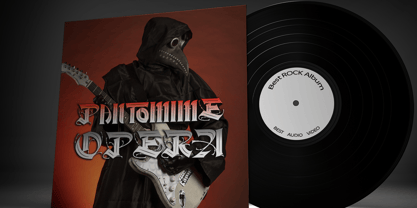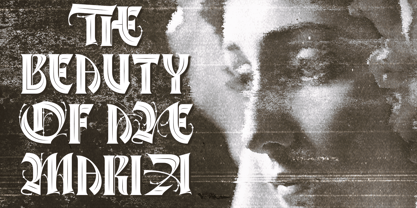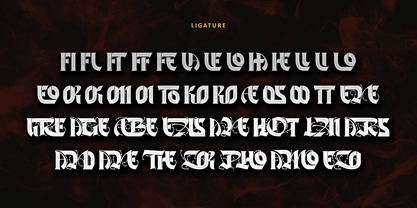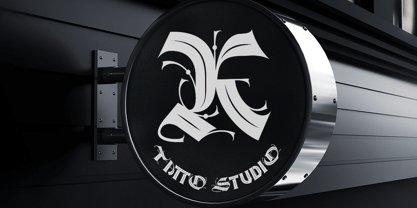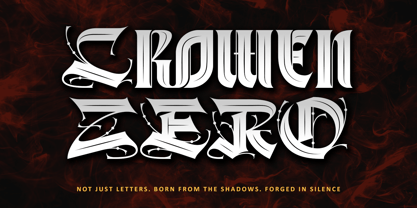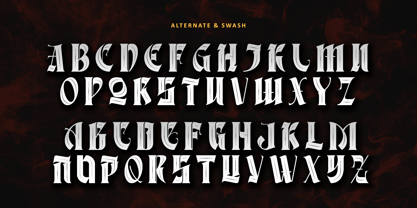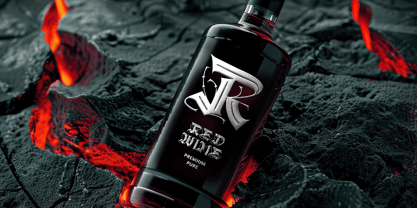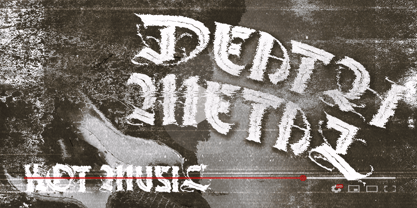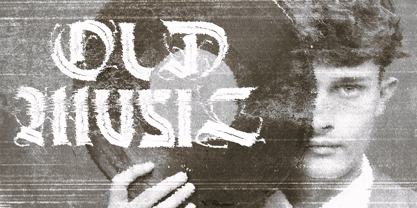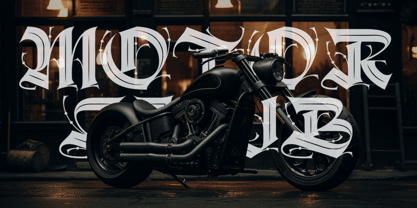
Crowen Zero
Die Schriftfamilie Crowen Zero wurde von Thomas Aradea entworfen und von Letterara veröffentlicht. Crowen Zero enthält 2 Stile und Familienpaketoptionen. Mehr über diese Familie
Not just letters. Whispers of darkness. Forged in silence, born from the shadows—Crowen Zero is more than a font, it’s a force.
Every curve cuts like steel, every glyph commands like a forgotten king. Designed to embody raw power and gothic beauty, Crowen Zero brings a dark majesty to logos, posters, apparel, and titles that dare to be feared. This is where silence speaks the loudest—and your designs rise from the void.